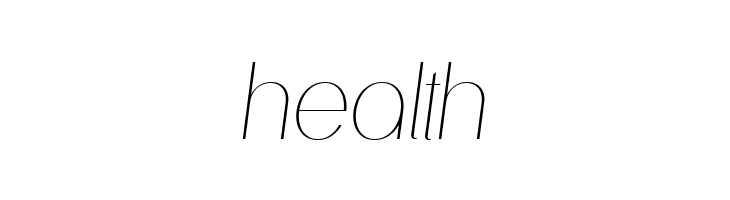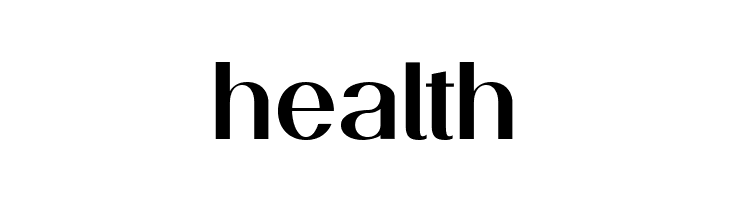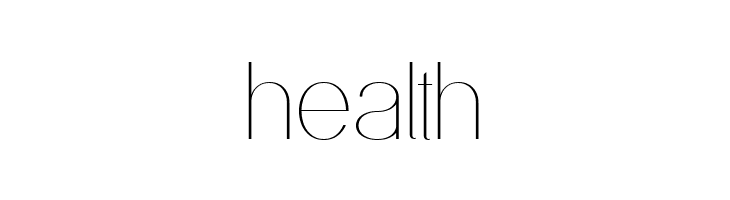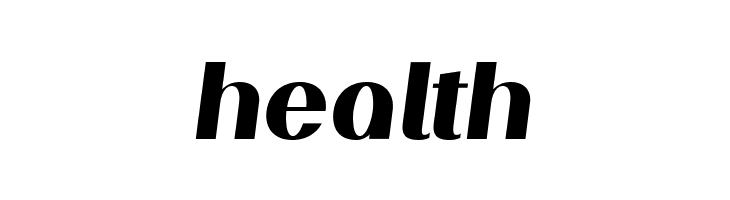
• PassionSansPDah-RegularItalic
A modern, italic sans-serif font with a sleek and dynamic style.
• PassionSansPDab-HairlineItalic
A modern, elegant hairline italic font with sleek, thin strokes.
• PassionSansPDca-OutlineLight
A modern, geometric outline font with clean, minimalistic design.
• PassionSansPDai-SemiBold
A modern, semi-bold font with clean lines and slight stroke contrast.
• PassionSansPDbk-BoldSmallCaps
A bold, geometric font with clean lines and a modern aesthetic.
• PassionSansPDbg-RegularSmallCaps
A modern, high-contrast sans-serif font with elegant and bold characteristics.
• PassionSansPDar-BlackItalic
A bold, italic font with a dynamic and energetic style.
• PassionSansPDaa-Hairline
A modern, ultra-thin sans-serif font with a minimalist design.
• PassionSansPDaq-Black
A bold, modern font with thick strokes and a dynamic slant.
• PassionSansPDan-HeavyItalic
A bold, italic font with a dynamic and energetic style.